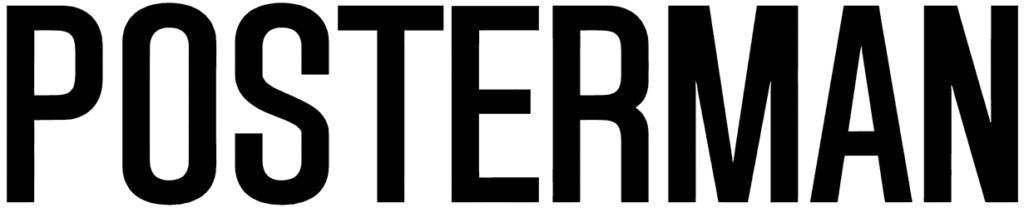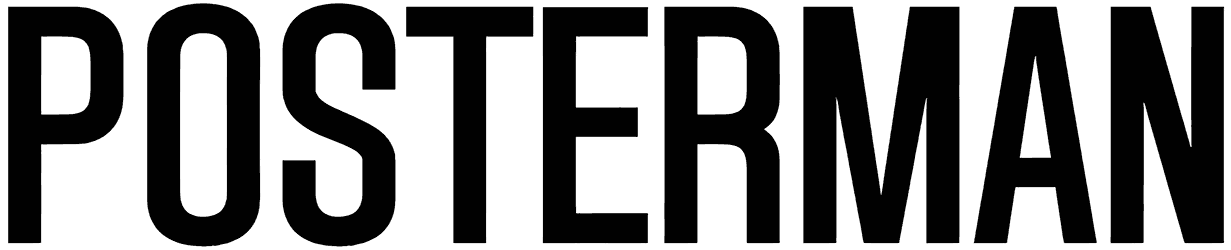
Posterman Font
Would you like to present your current project in a modest and famous words face? Use this sans-serif font and present your salient design. Posterman font doesn’t support lowercase letters and numerals, but with its matchable style, it would act as an apt display for varied designs like packaging, logos, business cards, and more.